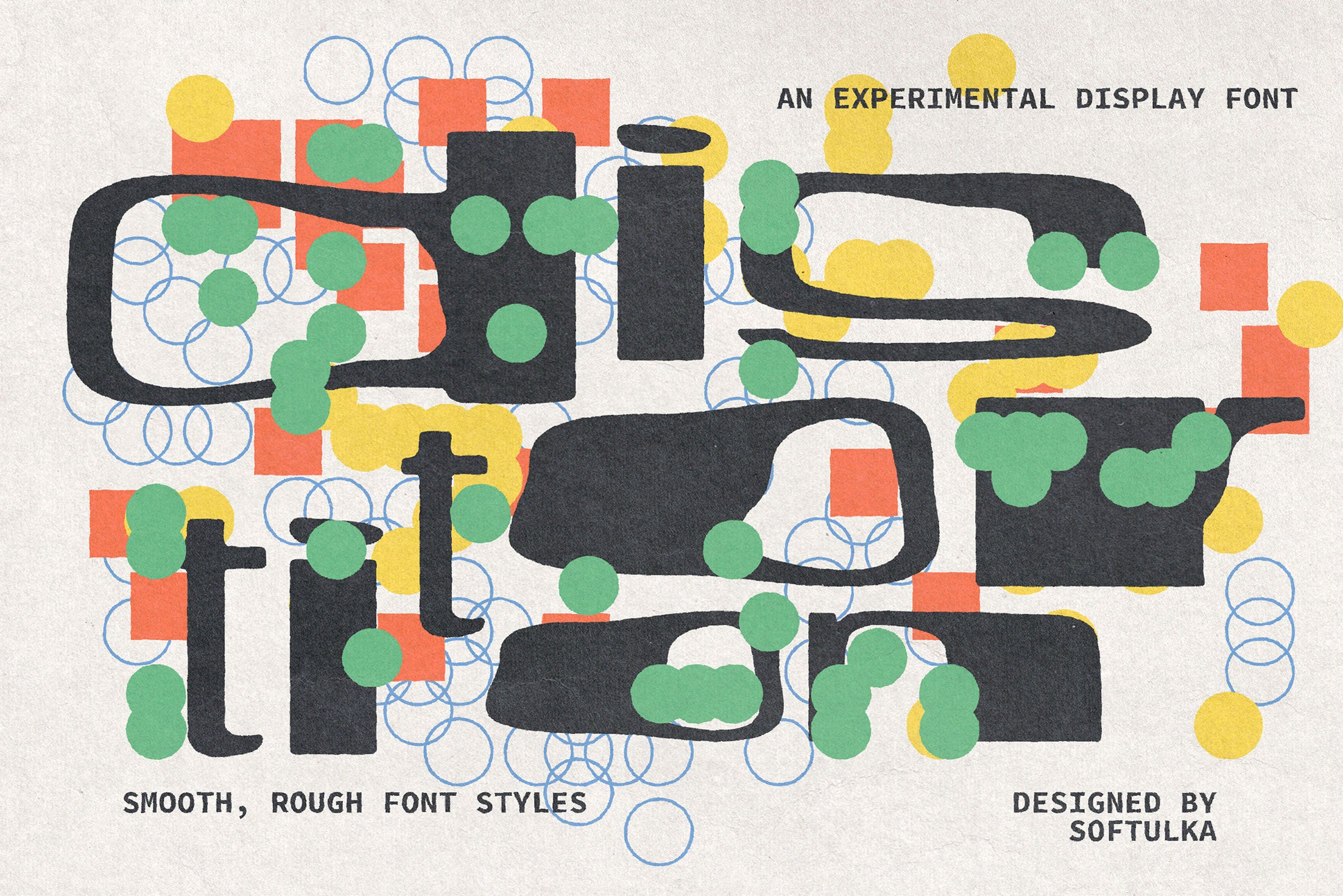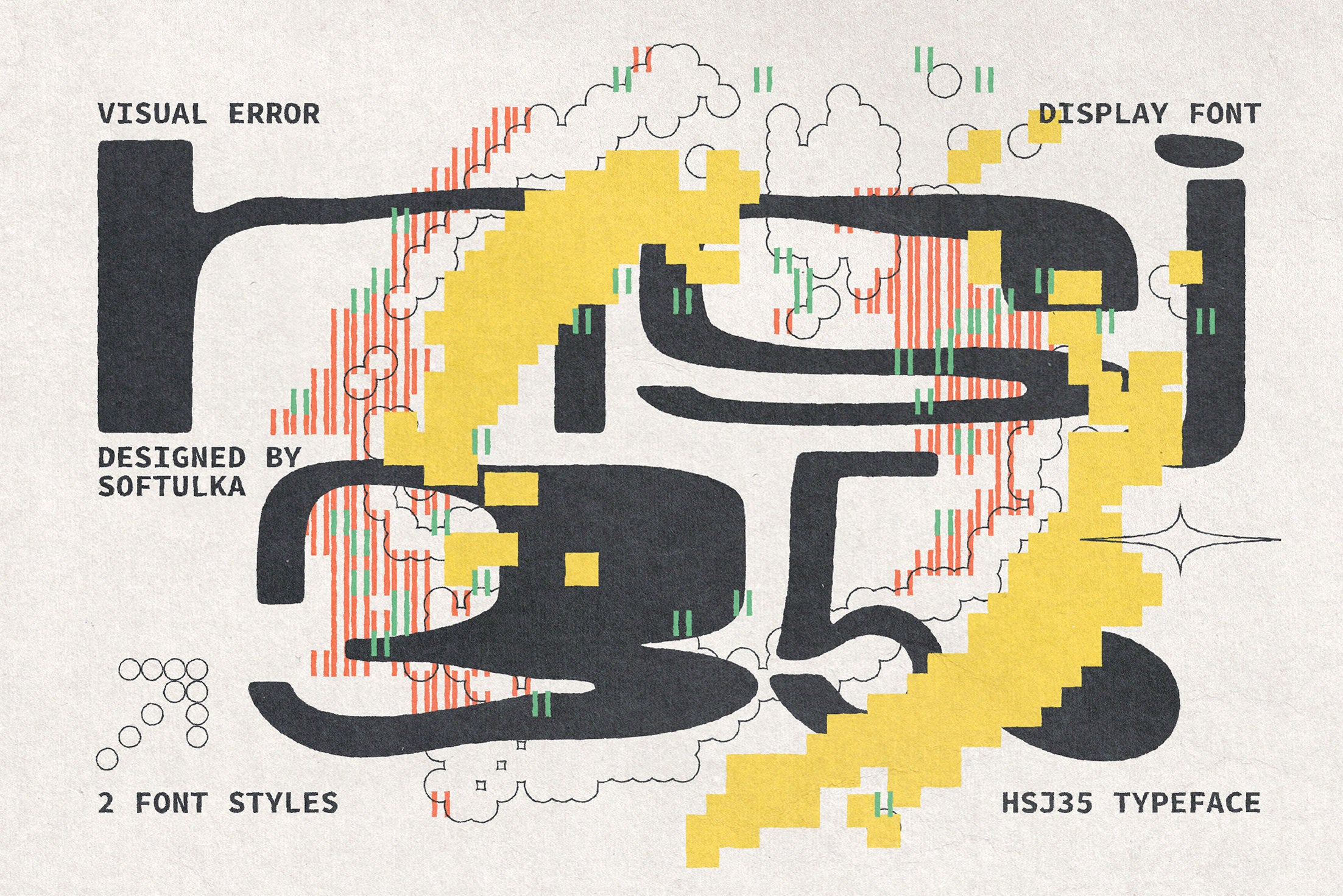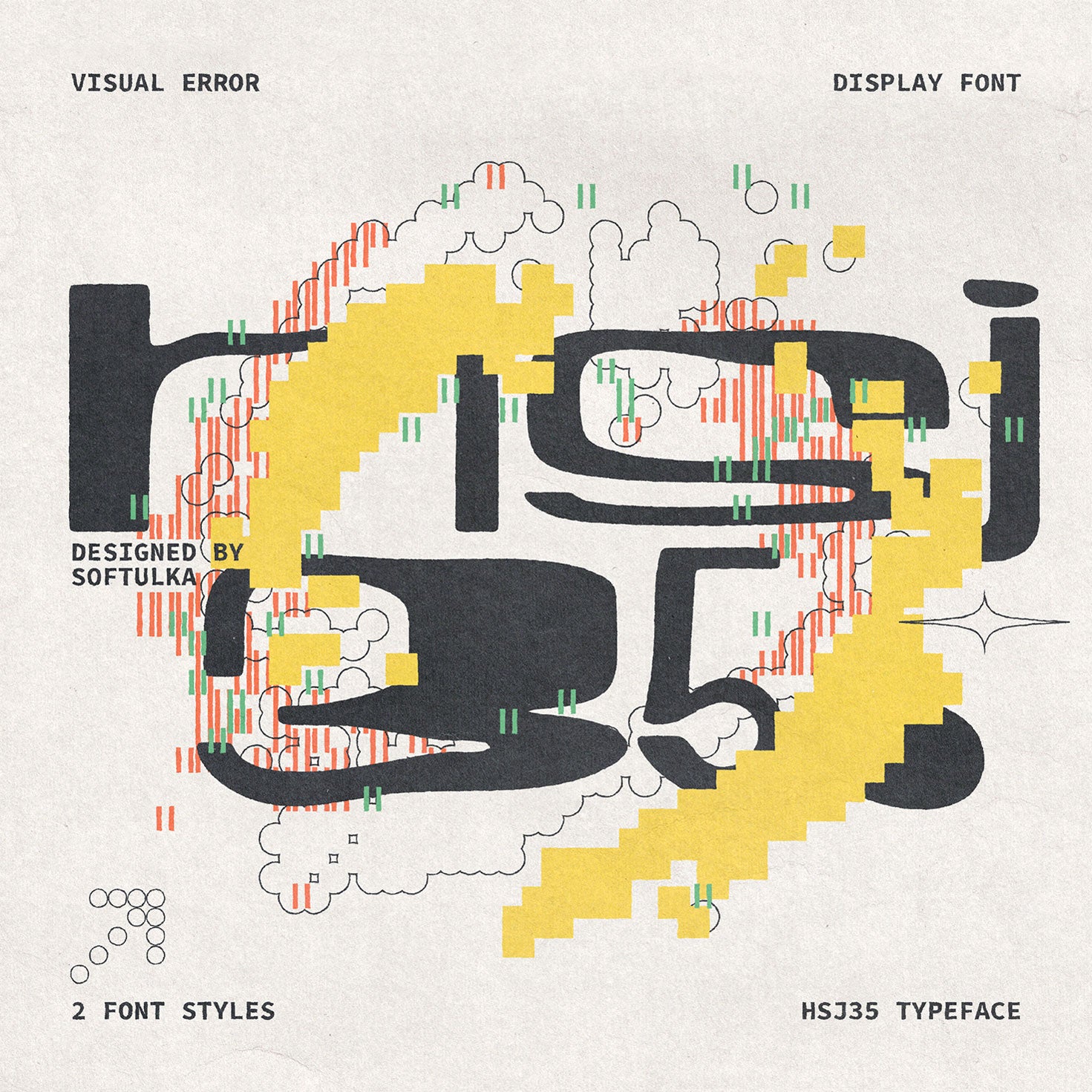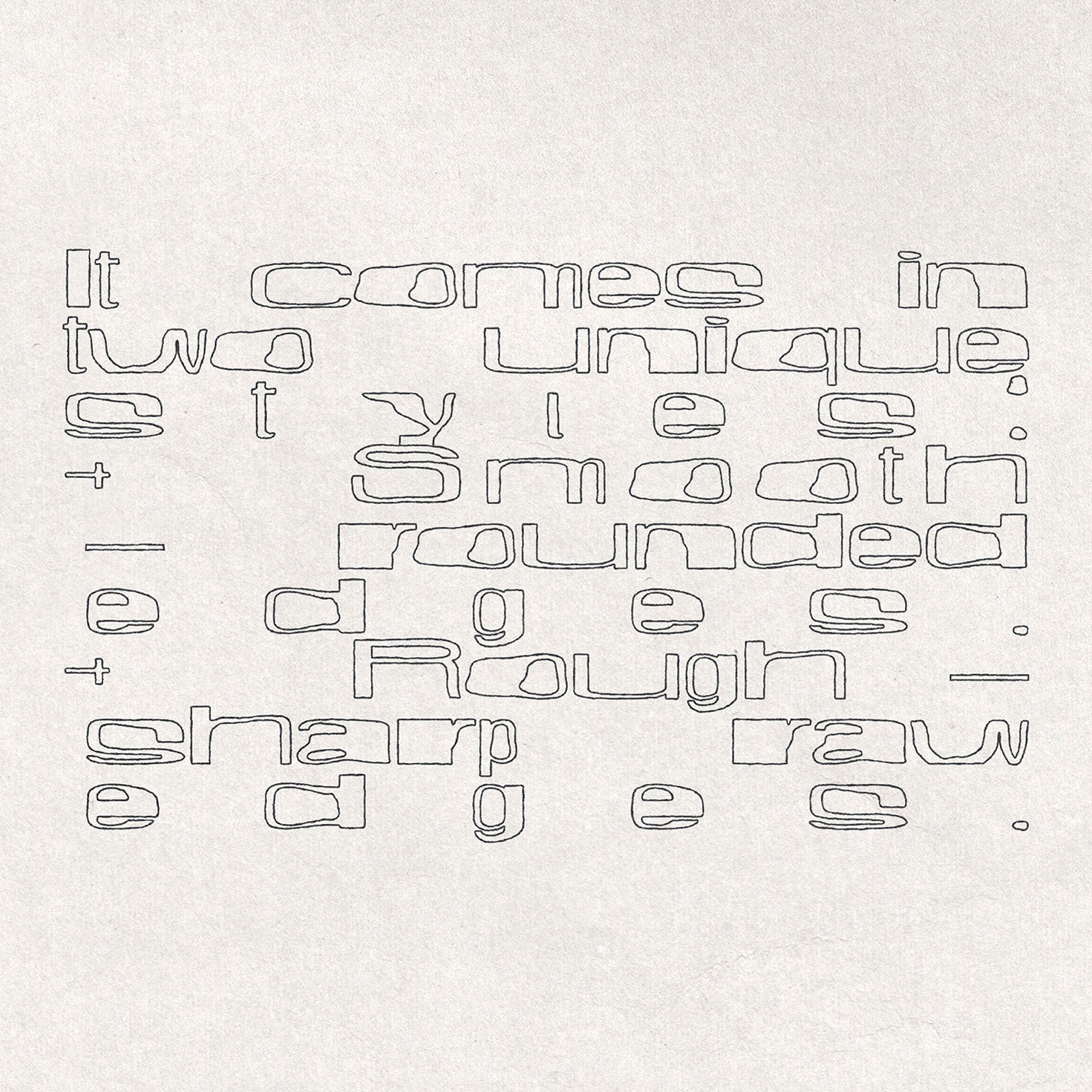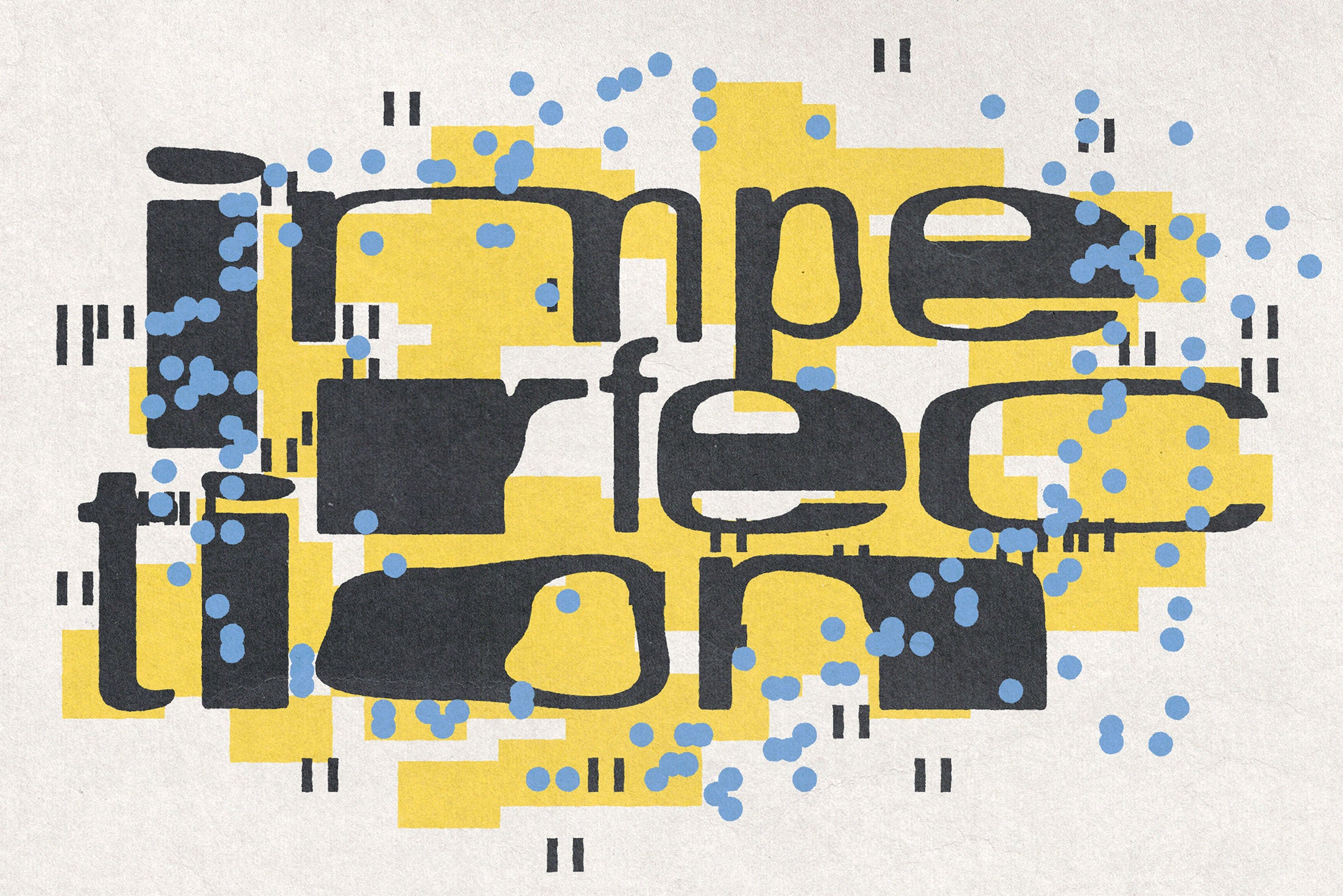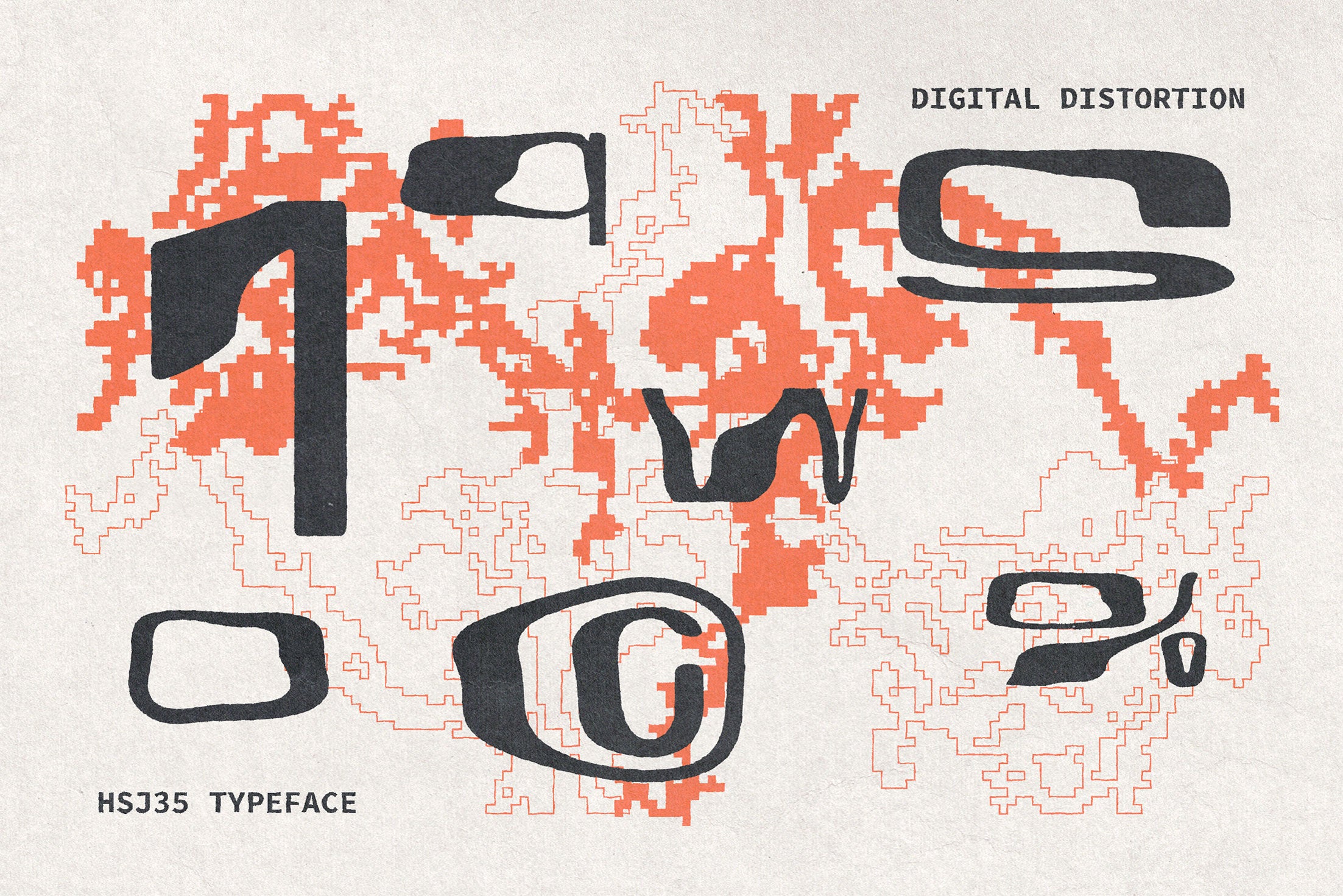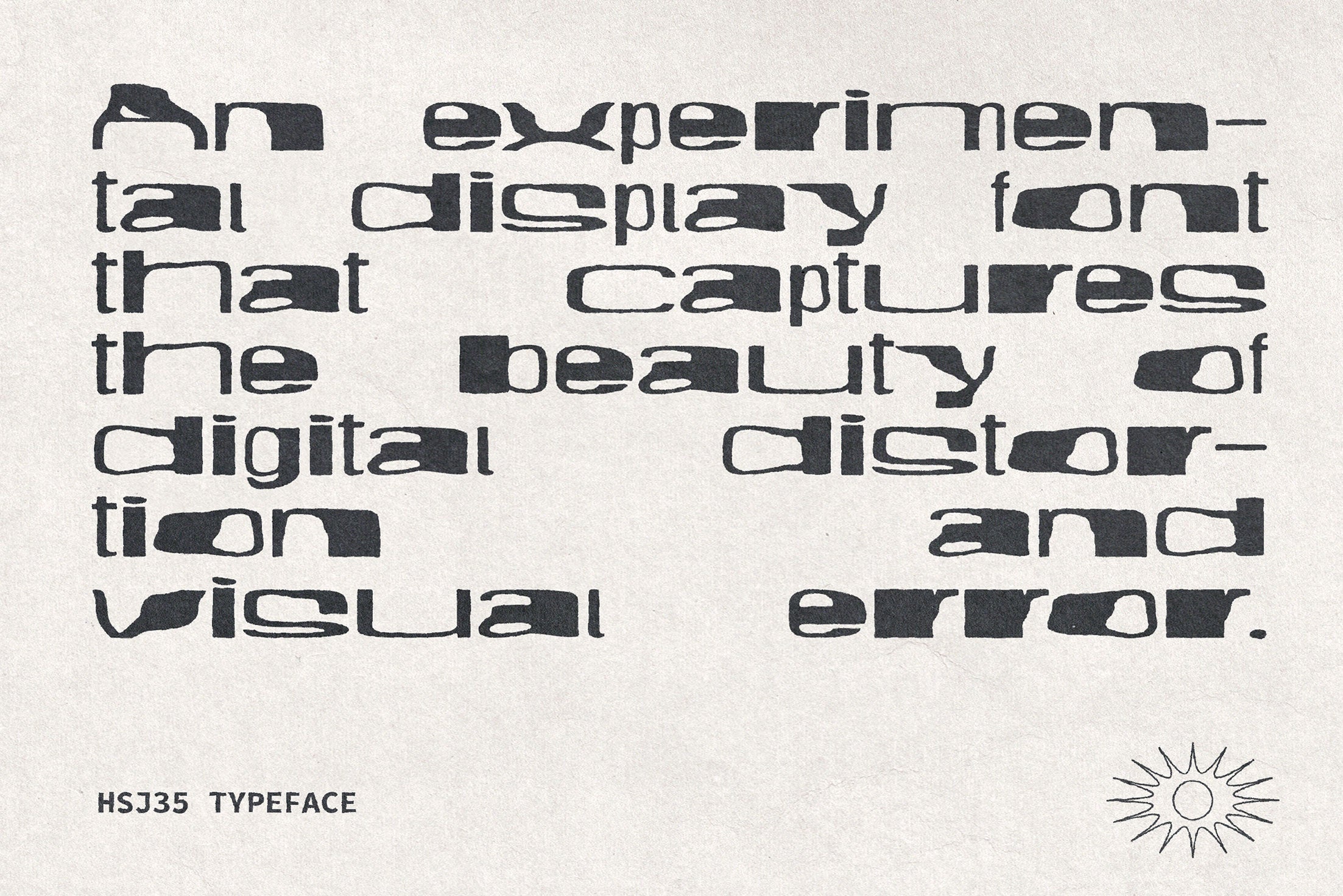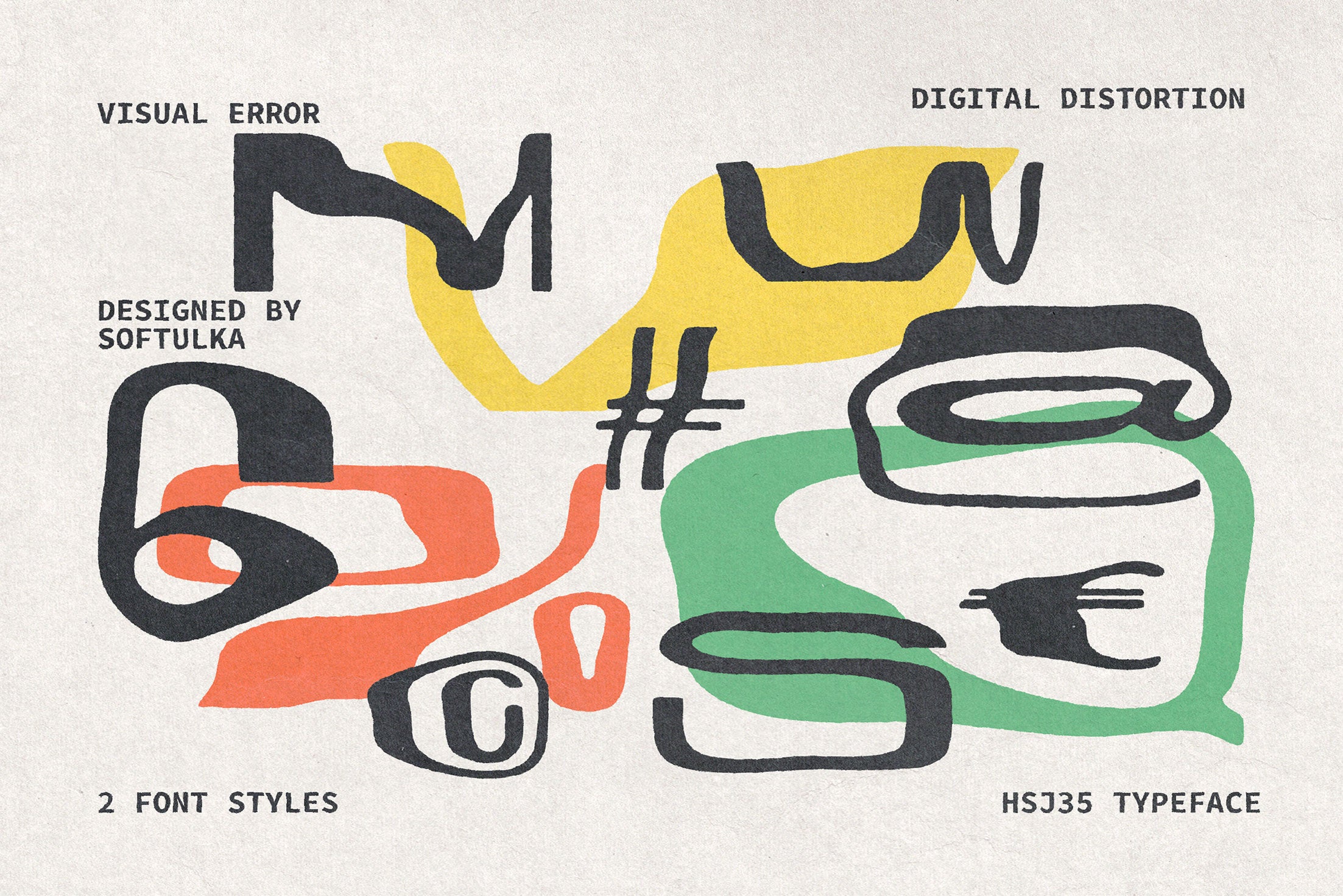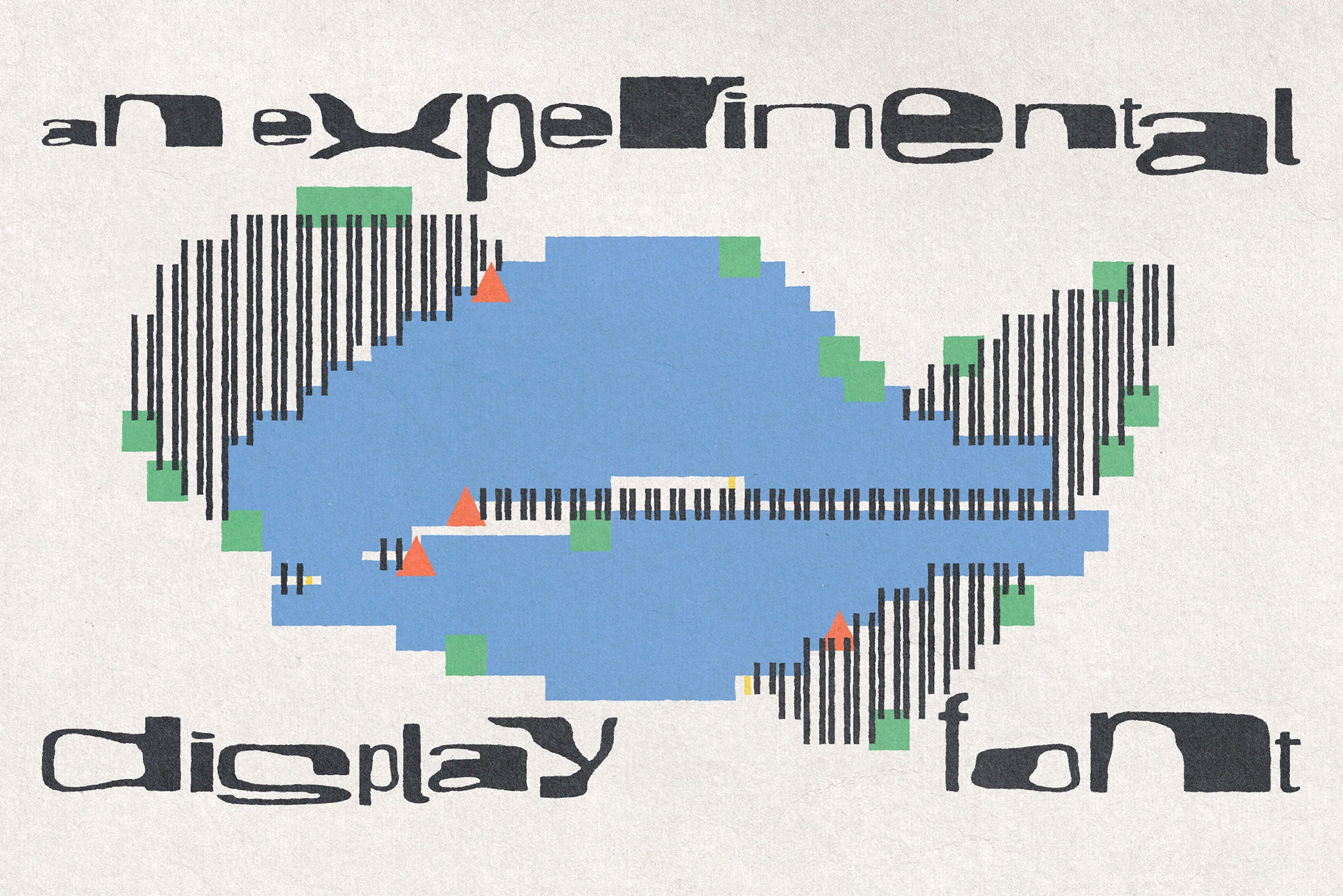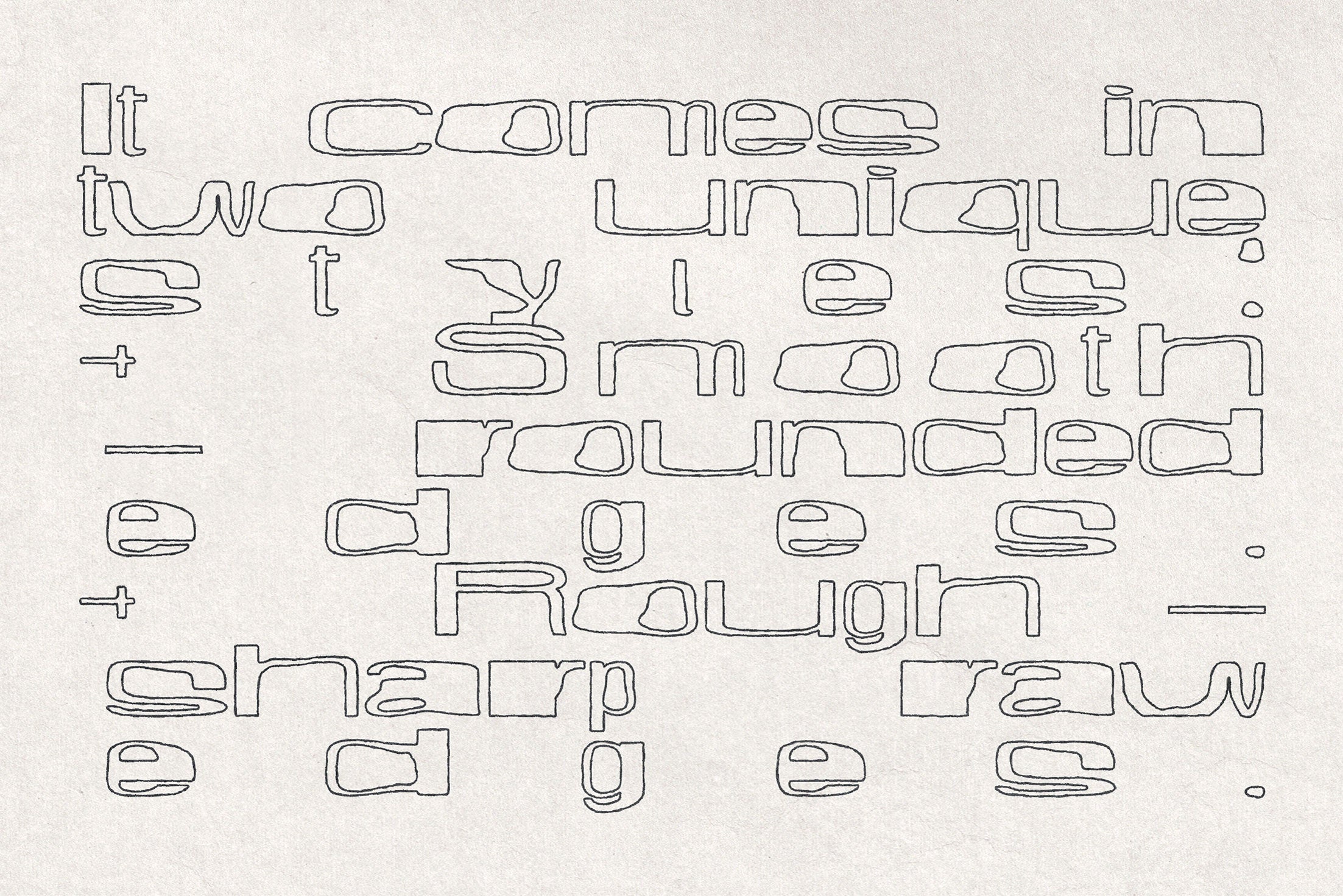
hsj35 typeface
The hsj35 typeface is an experimental display font featuring two styles: Smooth with rounded edges and Rough with sharp raw edges. It includes 2 OTF files, 2 TTF files, 2 WOFF files, and a PDF preview, designed to reflect digital distortion and visual error.
Softulka